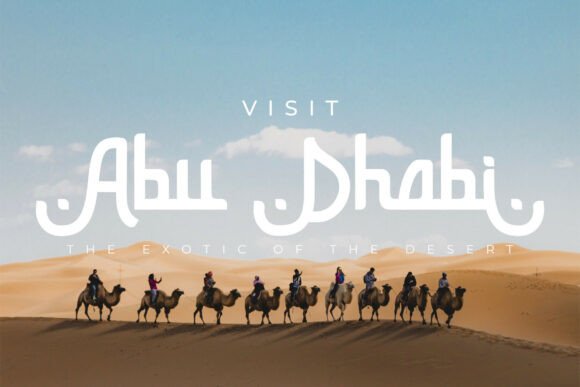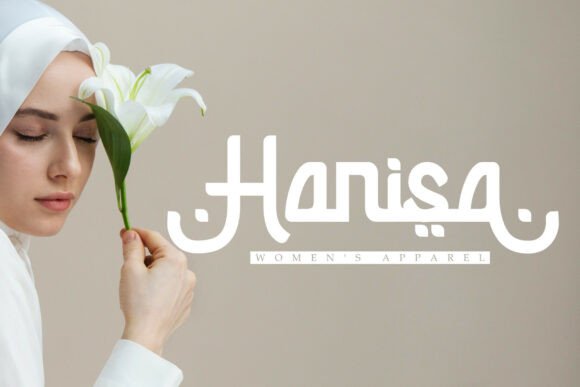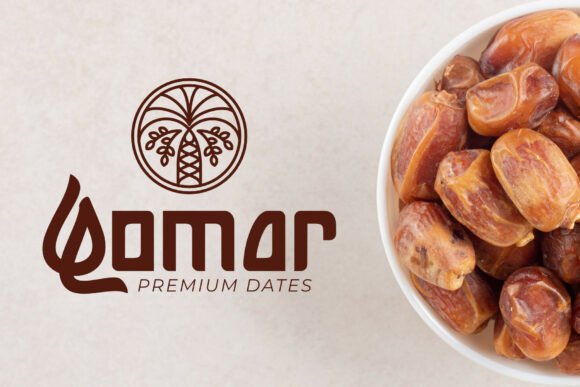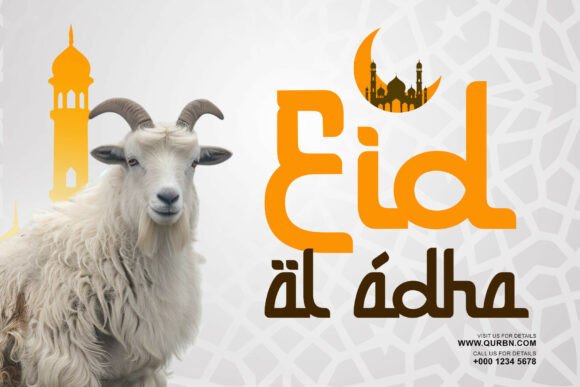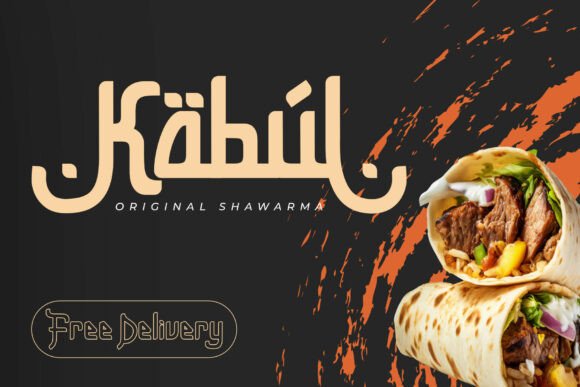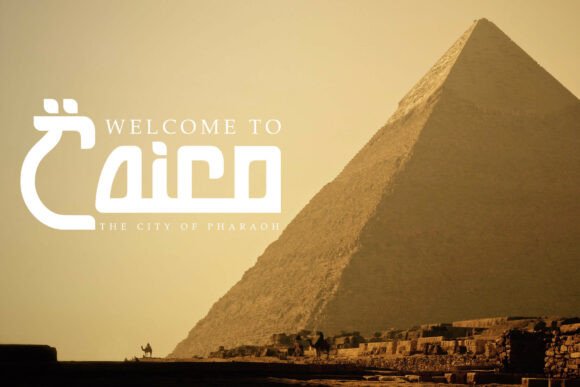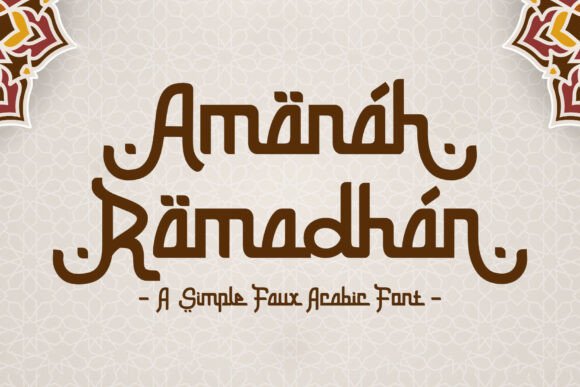
Introducing Amanah Ramadhan Font: A Beautifully Crafted Faux Arabic Display Font
As the holy month of Ramadhan approaches, designers and crafters are on the lookout for typography that embodies the spirit of this sacred time. Look no further than Amanah Ramadhan, a stunning faux Arabic display font that brings a sense of peace and reverence to your designs. With its simple, stylish, and minimalist aesthetic, this typeface is perfect for creating beautiful Ramadhan and Eid greetings, Islamic branding, and religious event flyers.
A Font that Embodies the Spirit of Islamic Design
Amanah Ramadhan is designed to capture the essence of Islamic design without the complexity of traditional Arabic script. Its clean lines and gentle curves ensure that your message is communicated with clarity and grace, making it ideal for designers who want to create elegant and sophisticated designs. The font’s minimalist approach allows it to be versatile and adaptable, making it perfect for a wide range of applications, from digital content to print materials.
Extensive Selection of Alternates and Swashes
One of the standout features of Amanah Ramadhan is its extensive selection of alternates and swashes. These decorative features allow you to customize your lettering, adding elegant flourishes and unique connections that elevate simple text into a captivating piece of art. With Amanah Ramadhan, you can create beautiful and intricate designs that showcase your creativity and attention to detail.
Amanah Ramadhan is a font that is sure to delight designers and crafters alike. Its versatility and adaptability make it perfect for a wide range of projects, from logo design to prayer rug patterns. Whether you’re creating digital content or print materials, Amanah Ramadhan provides the perfect blend of tradition and modern simplicity. With this font, you can bring a sense of calm and sophistication to your designs, making it ideal for any project that requires a touch of elegance.
Use Amanah Ramadhan for:
- Ramadhan and Eid greetings
- Islamic branding and marketing materials
- Religious event flyers and posters
- Logo design and branding
- Prayer rug patterns and Islamic textiles
- Digital content, including social media graphics and blog posts
Why Choose Amanah Ramadhan?
There are many reasons why Amanah Ramadhan stands out from the crowd. Here are just a few:
- Unique and elegant design: Amanah Ramadhan is a beautifully crafted font that is sure to turn heads.
- Highly versatile: This font can be used for a wide range of projects, from digital content to print materials.
- Extensive selection of alternates and swashes: With Amanah Ramadhan, you can customize your lettering and add elegant flourishes and unique connections.
- Perfect for Islamic design: This font is designed to capture the spirit of Islamic design, making it perfect for Ramadhan and Eid greetings, Islamic branding, and more.
In conclusion, Amanah Ramadhan is a beautifully crafted faux Arabic display font that is perfect for designers and crafters looking to add a touch of elegance and sophistication to their designs. With its simple, stylish, and minimalist aesthetic, this typeface captures the spirit of Islamic design without the complexity of traditional Arabic script. Its extensive selection of alternates and swashes makes it highly versatile, and its clean lines and gentle curves ensure that your message is communicated with clarity and grace. Whether you’re designing a logo, a prayer rug pattern, or digital content, Amanah Ramadhan provides the perfect blend of tradition and modern simplicity.